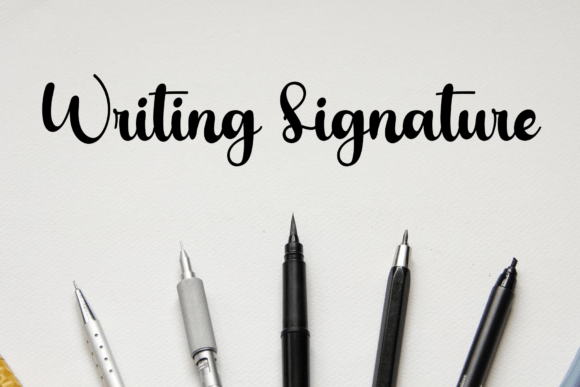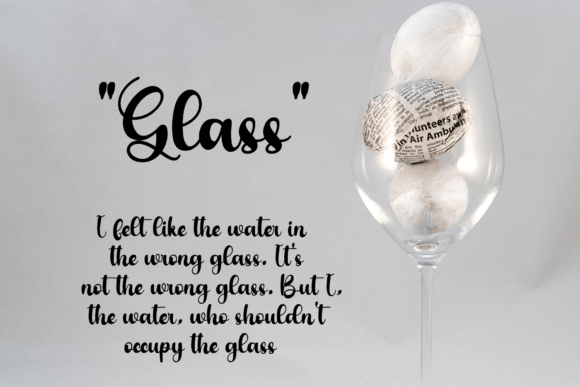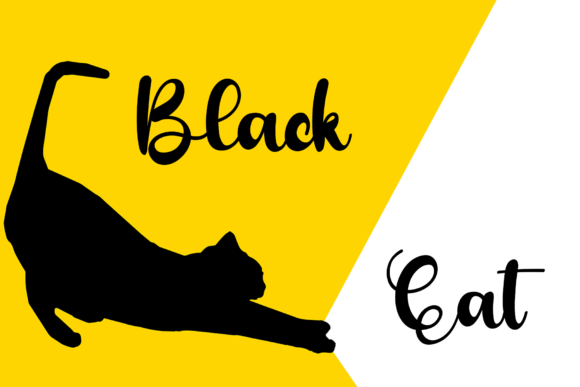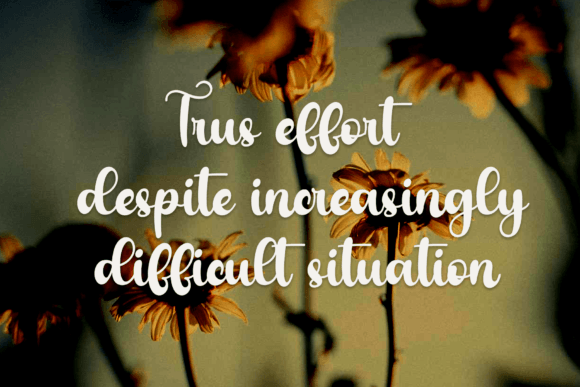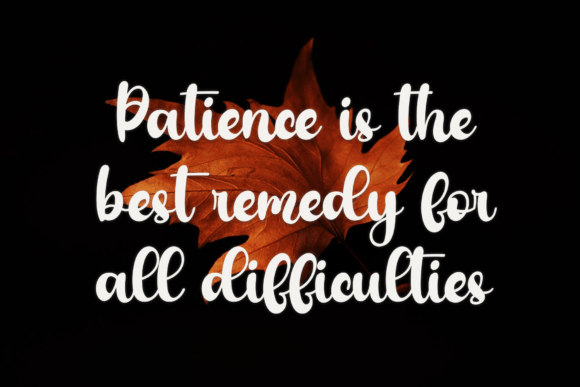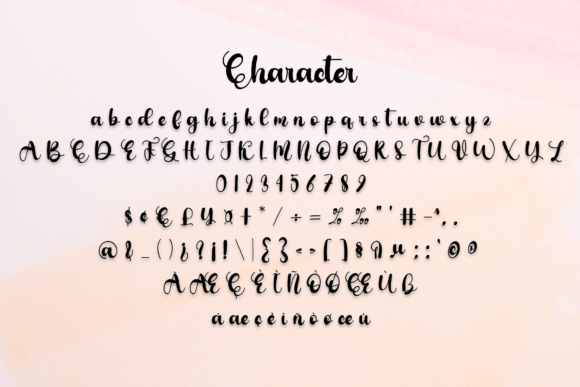
Introducing Barbershop Font: Elevate Your Designs with a Delicate Handwritten Touch
In the world of design, fonts play a crucial role in conveying the tone and personality of a project. Whether you’re crafting a letter, invitation, or product label, the right font can make all the difference. That’s where Barbershop Font comes in – a carefully crafted, delicate handwritten font designed to add a touch of uniqueness and coolness to your designs.
The Charm of Barbershop Font
Barbershop Font is a beautiful, handwritten typeface that exudes elegance and sophistication. Its delicate strokes and carefully crafted lettering make it perfect for a variety of design applications, from formal invitations to food product labels, titles, and more. With Barbershop Font, you can add a personal touch to your projects and make them stand out from the crowd.
What Makes Barbershop Font Special?
- Unique and Handcrafted: Barbershop Font is a one-of-a-kind, handcrafted typeface that has been carefully designed to provide a distinctive look and feel.
- Delicate and Elegant: The font’s delicate strokes and elegant lettering make it perfect for designs that require a touch of sophistication.
- Versatile: Barbershop Font can be used for a wide range of design applications, from formal invitations to food product labels, titles, and more.
- Easy to Read: Despite its delicate nature, Barbershop Font is easy to read, making it perfect for body text and headlines.
Use Cases for Barbershop Font
Barbershop Font is an incredibly versatile typeface that can be used for a wide range of design projects. Here are some use cases to get you started:
- Invitations: Use Barbershop Font to create beautiful, formal invitations for weddings, birthdays, and other special occasions.
- Food Product Labels: Add a touch of elegance to your food product labels with Barbershop Font.
- Titles and Headlines: Use Barbershop Font to create stunning titles and headlines for your blog posts, articles, and social media graphics.
- Branding: Incorporate Barbershop Font into your brand identity to add a touch of sophistication and elegance.
Tips for Using Barbershop Font
To get the most out of Barbershop Font, here are some tips to keep in mind:
- Pair it with Other Fonts: Experiment with pairing Barbershop Font with other fonts to create a unique and visually appealing combination.
- Use it for Headlines: Use Barbershop Font for headlines and titles to add a touch of elegance and sophistication.
In conclusion, Barbershop Font is a beautiful, delicate handwritten font that is perfect for designers and crafters looking to add a touch of uniqueness and elegance to their projects. With its versatile nature and wide range of use cases, Barbershop Font is sure to become a staple in your design toolkit. So why wait? Add Barbershop Font to your creative projects today and be amazed at its effect!
- Delicate handwritten font
- Unique and handcrafted
- Perfect for invitations, food product labels, titles, and more
- Elegant and sophisticated
- Easy to read